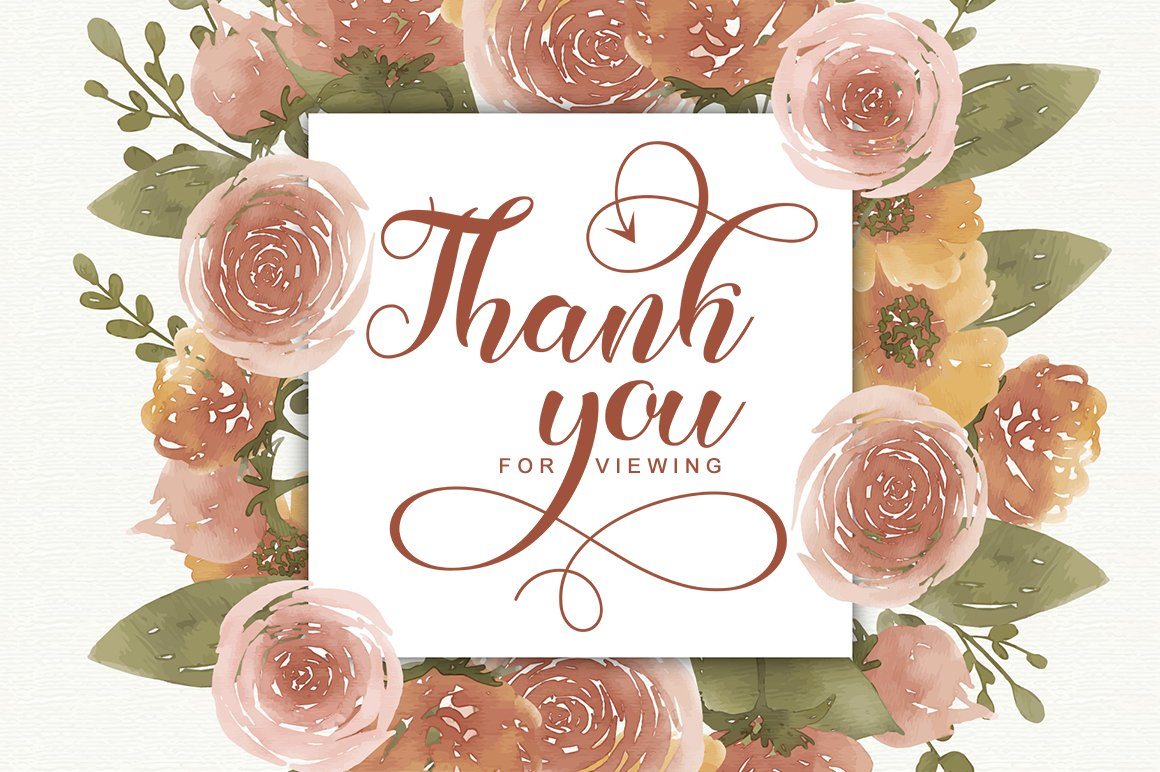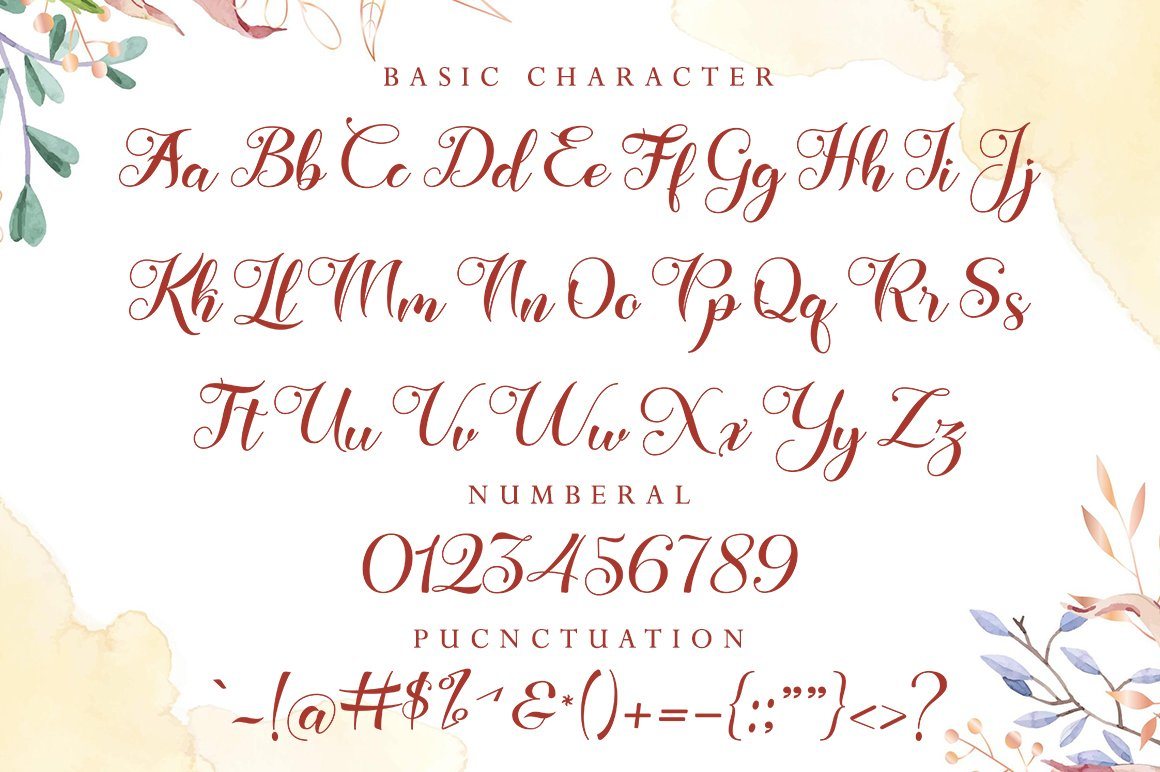
About Lady Rose
Lady rose is a romantic handwritten font. It features amazing heart-shaped titling. Use it to add a special touch to your projects! Fall in love with its authentic feel and use it to create gorgeous wedding invitations, beautiful stationary art, eye-catching social media posts, and cute greeting cards, and many more. This font is PUA encoded which means you can access all of the cute glyphs and swashes with ease! It also features a wealth of special features including alternate glyphs and ligatures.